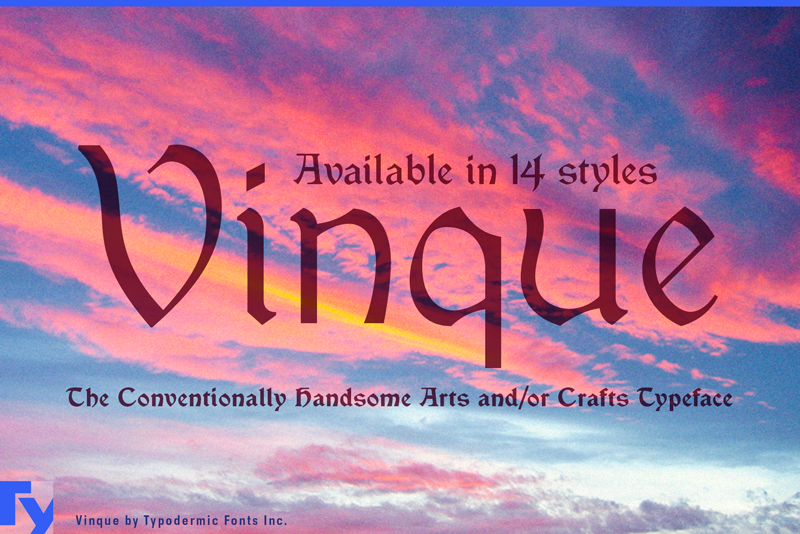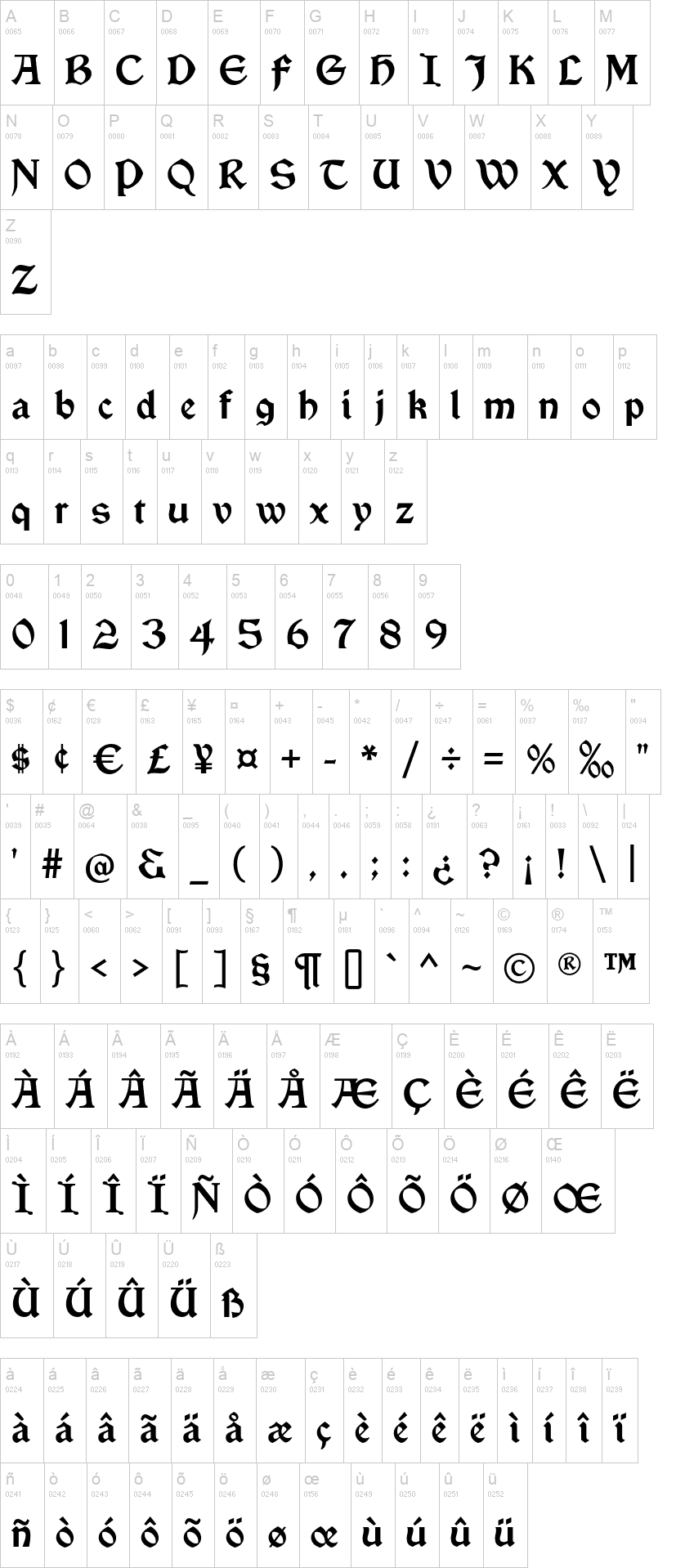
Note of the authorVinque is based on a nineteenth-century Arts and Crafts revival of medieval lettering. In 1891, British type designer William Morris produced Troy, a magnificent blackletter typeface in the medieval style. It's gorgeous, however some modern applications, such as UI and video game text, demand a less ornate medieval appearance. Vinque is straightforward. It avoids strong vertical blackletter strokes, which can be difficult for modern readers. The outcome is a simple, clean typeface that successfully expresses medievalism to the reader. Vinque comes in seven weights and italics. OpenType fractions, f-ligatures and old-style numerals are supported. Most Latin-based European, Vietnamese, Greek, and most Cyrillic-based writing systems are supported, including the following languages. Afaan Oromo, Afar, Afrikaans, Albanian, Alsatian, Aromanian, Aymara, Azerbaijani, Bashkir, Bashkir (Latin), Basque, Belarusian, Belarusian (Latin), Bemba, Bikol, Bosnian, Breton, Bulgarian, Buryat, Cape Verdean, Creole, Catalan, Cebuano, Chamorro, Chavacano, Chichewa, Crimean Tatar (Latin), Croatian, Czech, Danish, Dawan, Dholuo, Dungan, Dutch, English, Estonian, Faroese, Fijian, Filipino, Finnish, French, Frisian, Friulian, Gagauz (Latin), Galician, Ganda, Genoese, German, Gikuyu, Greenlandic, Guadeloupean Creole, Haitian Creole, Hawaiian, Hiligaynon, Hungarian, Icelandic, Igbo, Ilocano, Indonesian, Irish, Italian, Jamaican, Kaingang, Khalkha, Kalmyk, Kanuri, Kaqchikel, Karakalpak (Latin), Kashubian, Kazakh, Kikongo, Kinyarwanda, Kirundi, Komi-Permyak, Kurdish, Kurdish (Latin), Kyrgyz, Latvian, Lithuanian, Lombard, Low Saxon, Luxembourgish, Maasai, Macedonian, Makhuwa, Malay, Maltese, Māori, Moldovan, Montenegrin, Nahuatl, Ndebele, Neapolitan, Norwegian, Novial, Occitan, Ossetian (Latin), Papiamento, Piedmontese, Polish, Portuguese, Quechua, Rarotongan, Romanian, Romansh, Russian, Rusyn, Sami, Sango, Saramaccan, Sardinian, Scottish Gaelic, Serbian, Serbian (Latin), Shona, Sicilian, Silesian, Slovak, Slovenian, Somali, Sorbian, Sotho, Spanish, Swahili, Swazi, Swedish, Tagalog, Tahitian, Tajik, Tatar, Tetum, Tongan, Tshiluba, Tsonga, Tswana, Tumbuka, Turkish, Turkmen (Latin), Tuvaluan, Ukrainian, Uzbek, Uzbek (Latin), Venda, Venetian, Vepsian, Vietnamese, Võro, Walloon, Waray-Waray, Wayuu, Welsh, Wolof, Xavante, Xhosa, Yapese, Zapotec, Zarma, Zazaki, Zulu and Zuni.